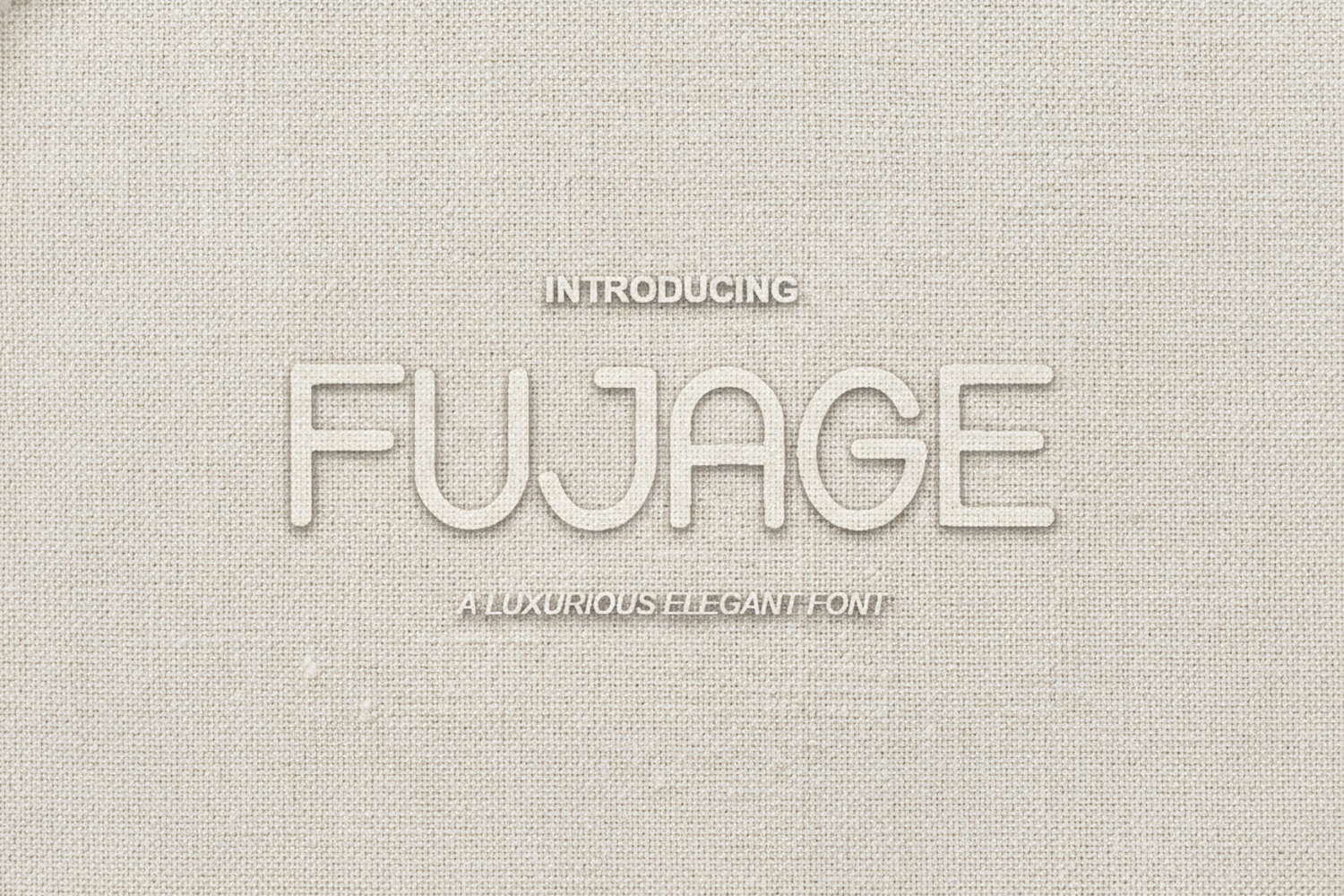
Fujage - Modern Geometric Display Font
Fujage
Elevate your design projects with Fujage, a premium modern geometric display font designed for clarity and impact. Fujage combines clean lines with a contemporary aesthetic, making it an essential addition to any designer's toolkit. Its balanced proportions and sophisticated style provide the professional edge needed for high-end creative work.
- Full character set including uppercase, lowercase, and numerals
- Comprehensive punctuation and symbols
- Multi-language support for global accessibility
- Branding and Identity: Create memorable logos and cohesive brand guidelines.
- Editorial Design: Perfect for high-end magazine headers, titles, and layouts.
- Social Media: Stand out on Instagram, Pinterest, and LinkedIn with clean, bold typography.
- Packaging: Ideal for modern product labels and premium box designs.
- Web Design: Highly legible for headers and hero sections on professional websites.